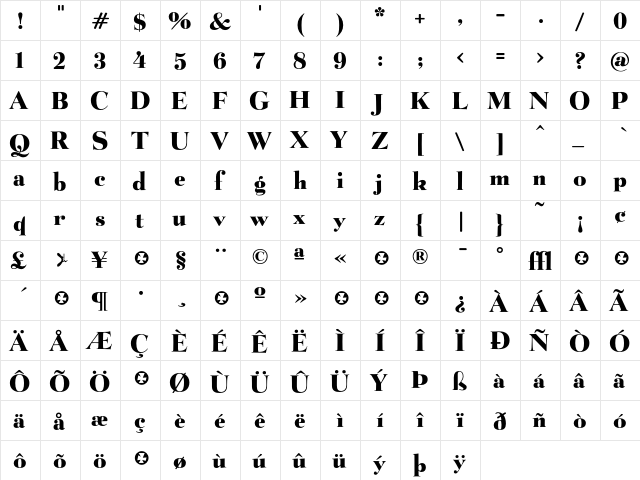
Belucian Ultra
Design Context for Belucian Typeface
Belucian offers clean, dependable letterforms without strong stylistic allegiance, making it a practical choice for designers who need flexibility.